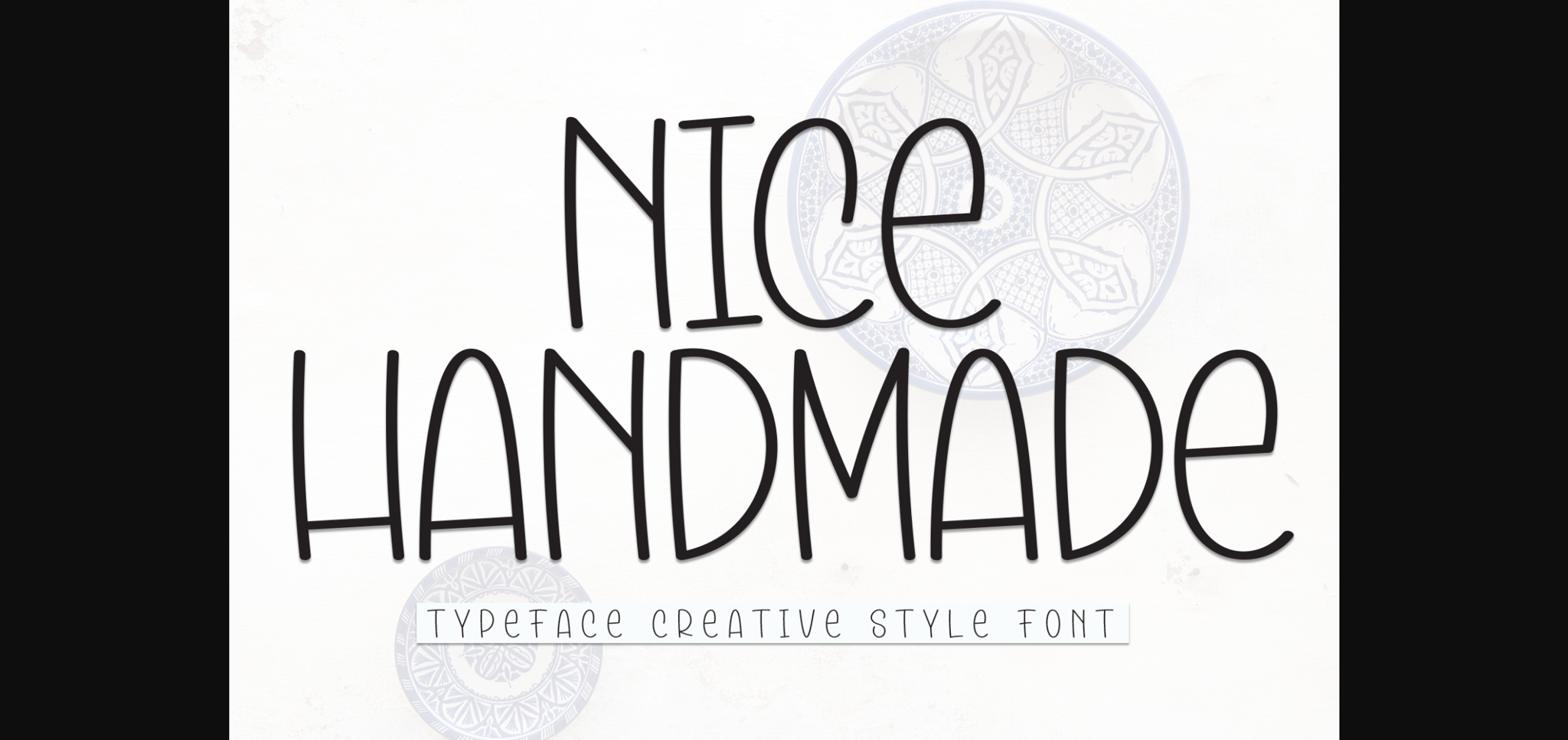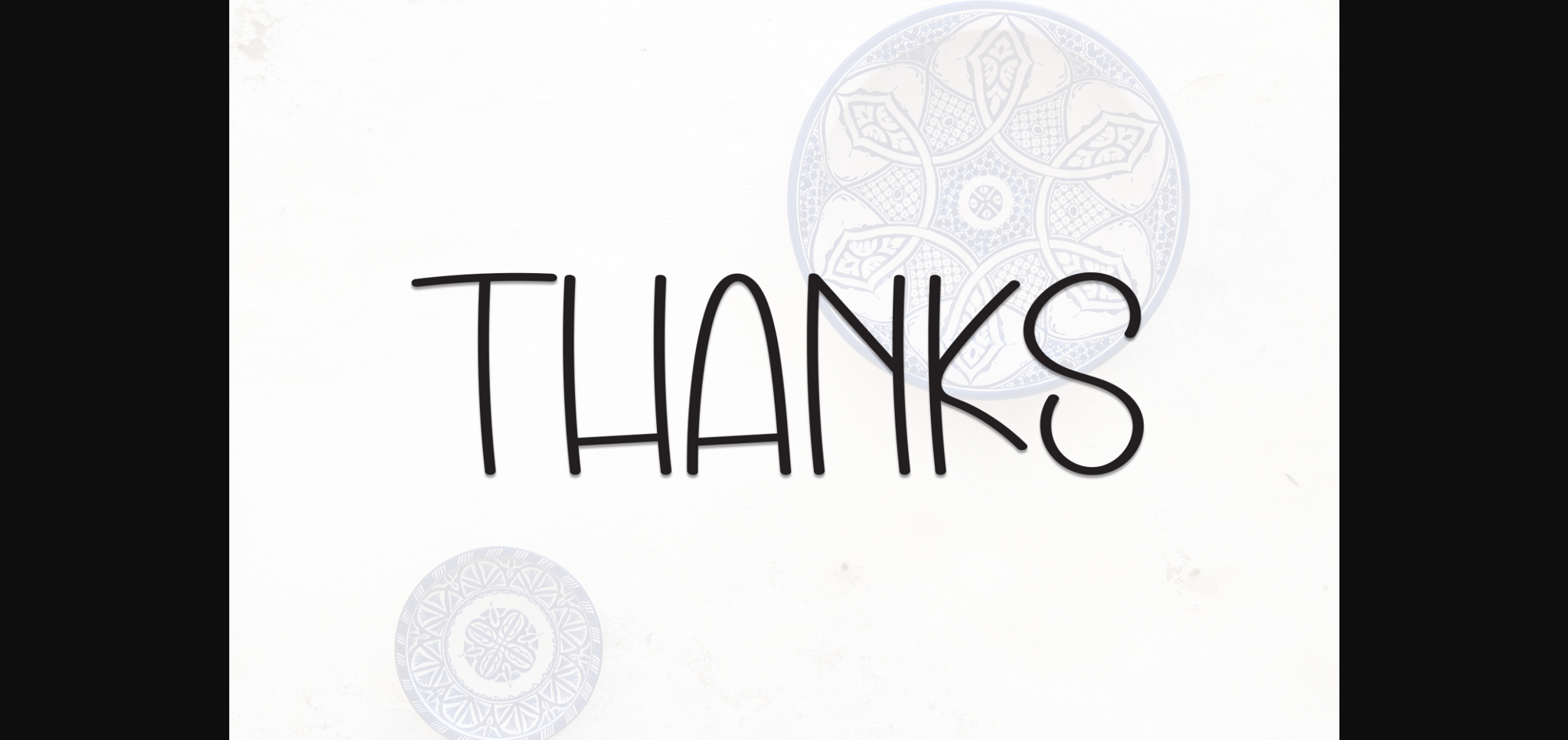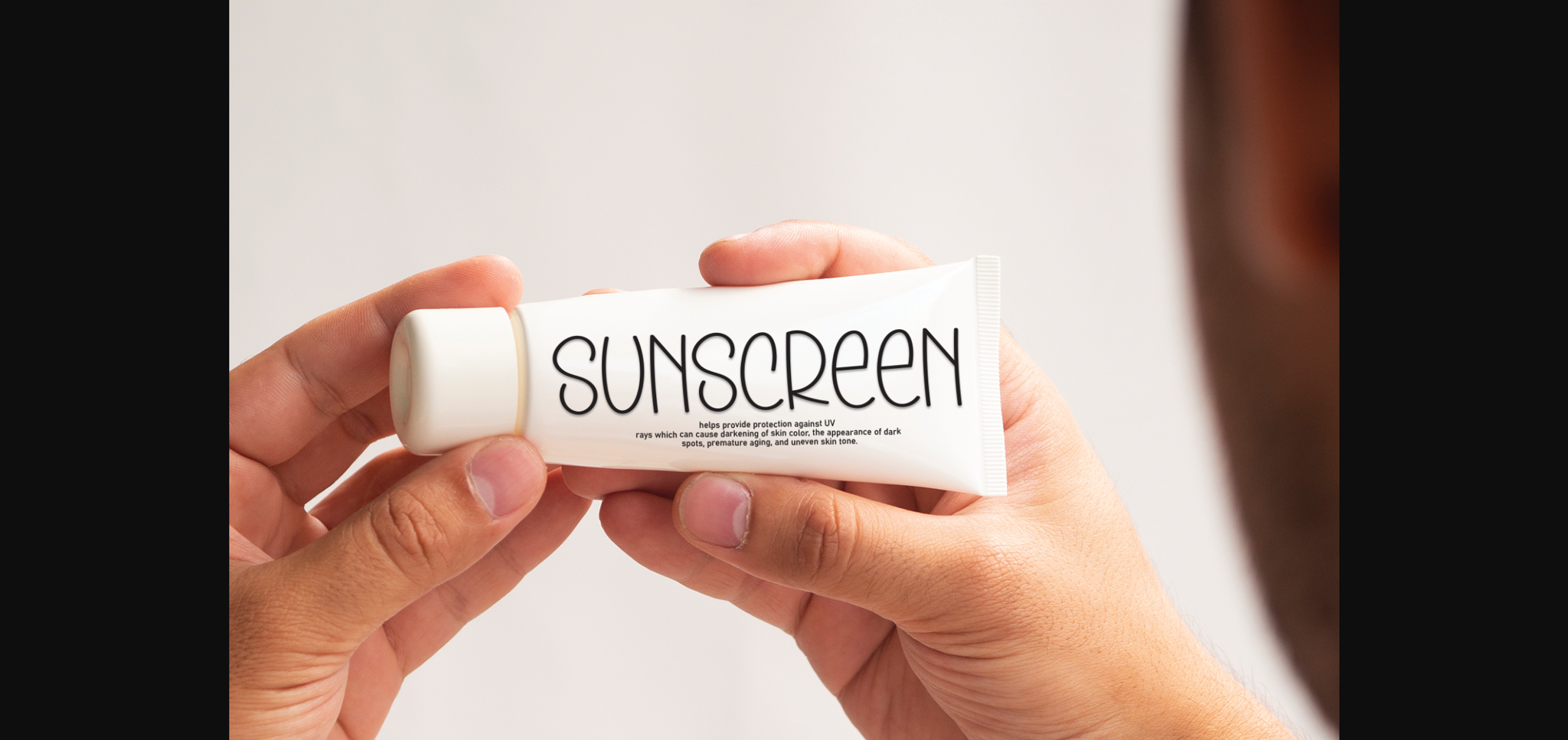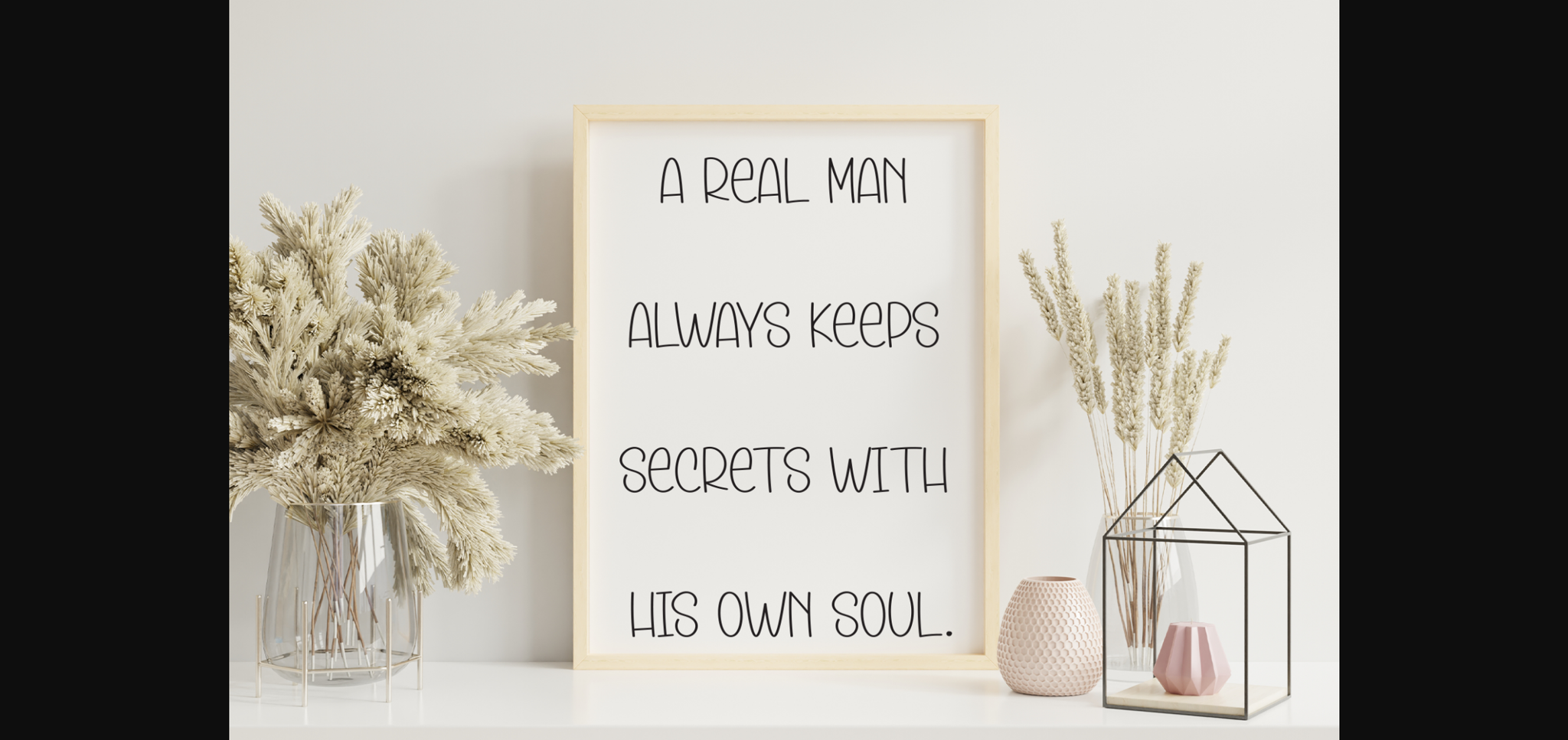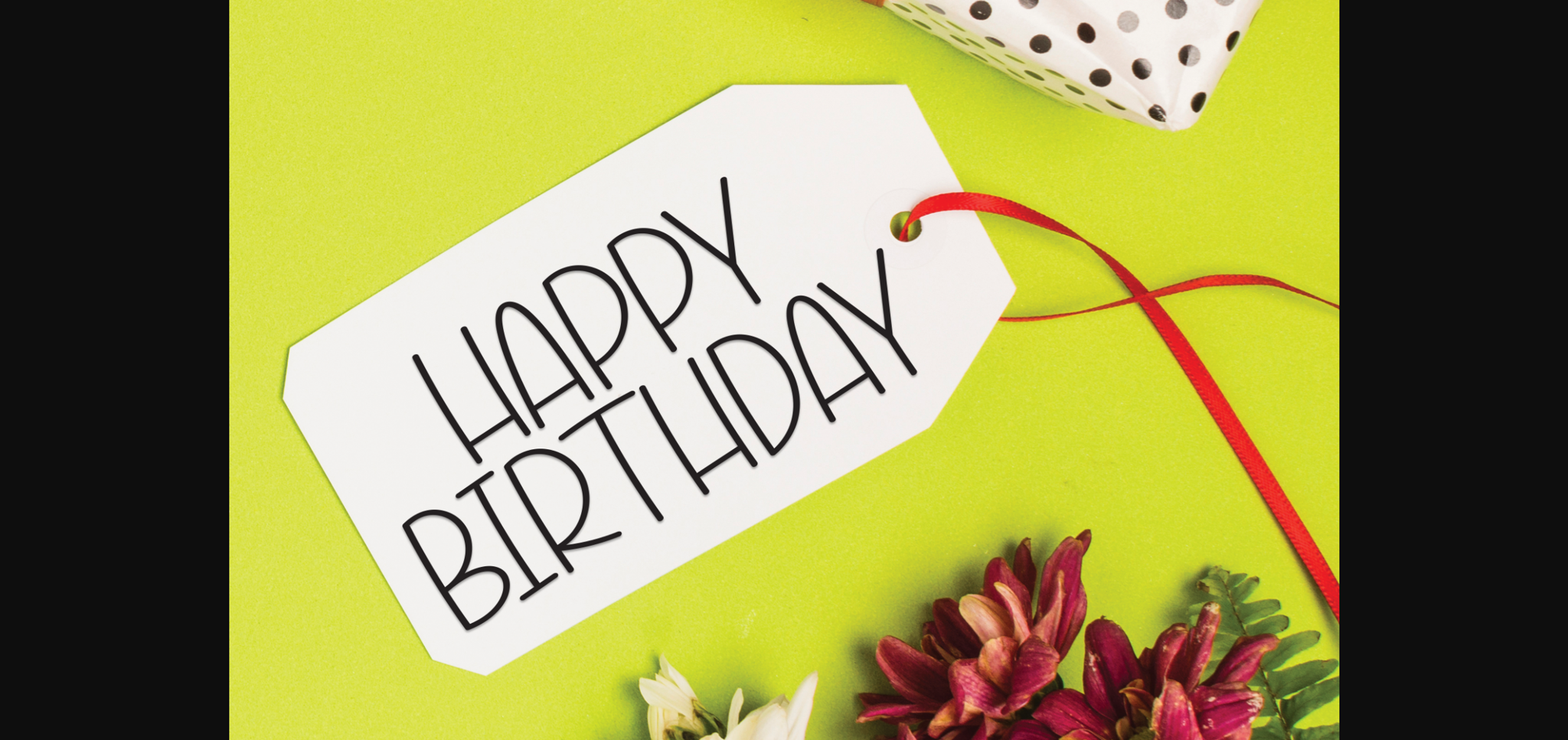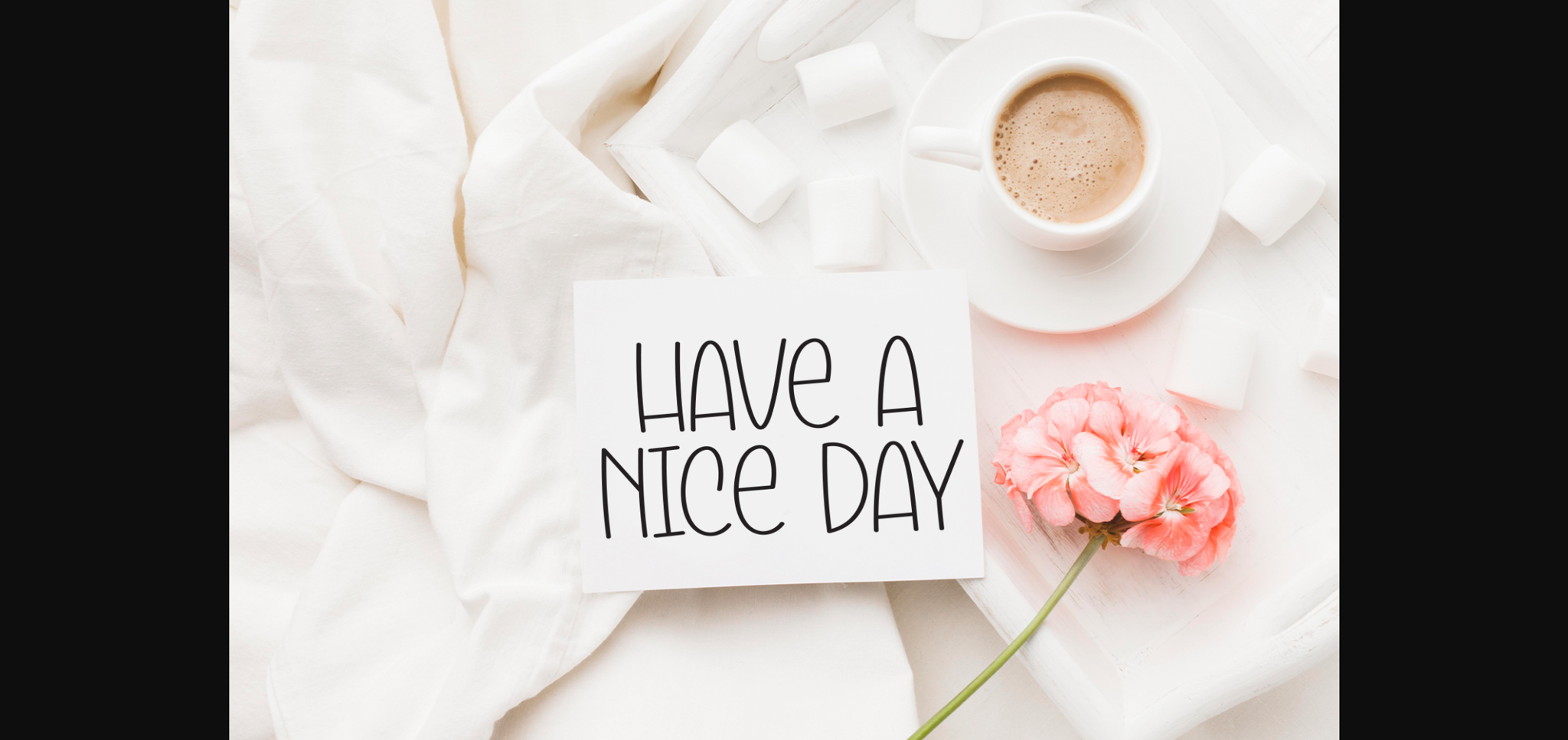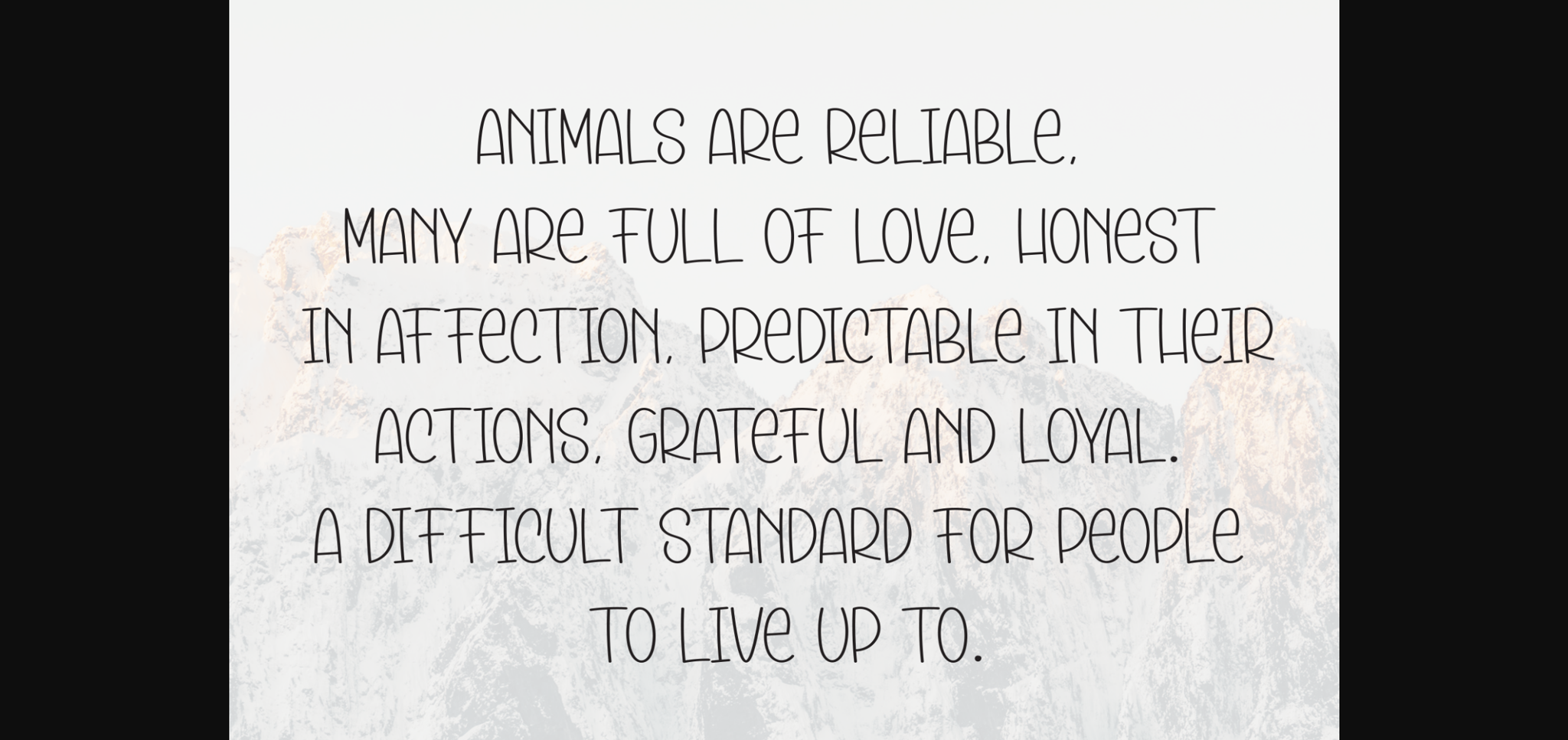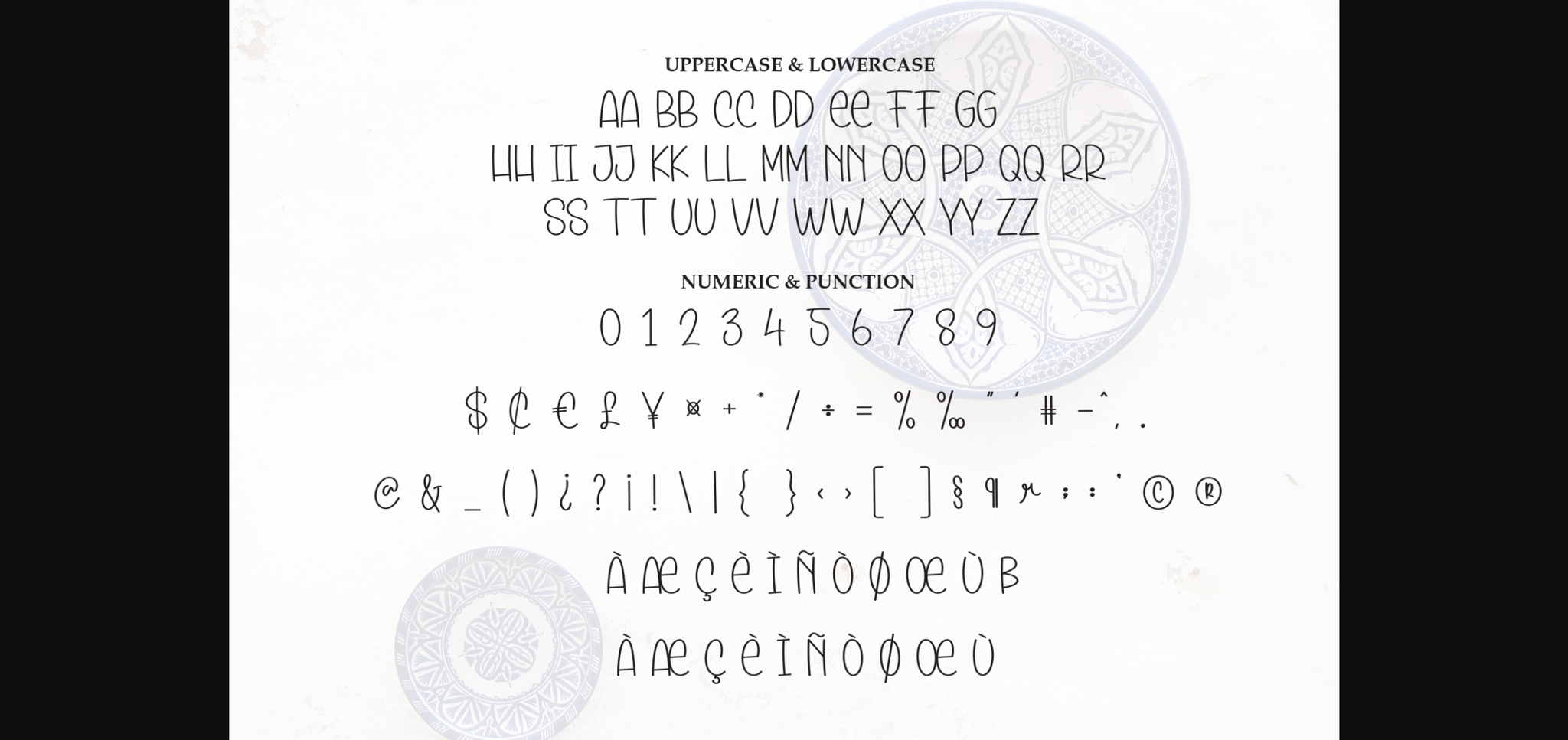
HomeSans Serif FontsNice Handmade Font Sans Serif Fonts Nice Handmade Font FacebookXPinterestWhatsApp 1 of 10 ... Nice Handmade Font Poster 2... Nice Handmade Font Poster 3... Nice Handmade Font Poster 4... Nice Handmade Font Poster 5... Nice Handmade Font Poster 6... Nice Handmade Font Poster 7... Nice Handmade Font Poster 8... Nice Handmade Font Poster 9... Nice Handmade Font Poster 10... About Nice Handmade Font Nice Handmade is a sweet and friendly sans-serif font. Cute yet versatile, this font is ideal for writing wedding invitations, cards, or any other design that might need a lovely touch! DOWNLOAD NOW People also explored Breakfast Font Magic Christmas Font Marcella Font Keylambo Font Brock Rangos Font Ningst Smile Font Relevance Font Sunflower Font Cendana Font 507 0 TagsNice Handmade Font Previous articleMinimalist School FontNext articleMorning Bakery Font LEAVE A REPLY Cancel reply Comment: Please enter your comment! Name:* Please enter your name here Email:* You have entered an incorrect email address! Please enter your email address here Website: Save my name, email, and website in this browser for the next time I comment. Personal Use Free Sweety Blue Personal Use Free Read more about this font Nottingsam Personal Use Free Read more about this font Anggiana Personal Use Free Read more about this font Zalitta Personal Use Free Read more about this font BLOG Fonts That Capture the Spirit of New York City New York City is more than just a place—it’s an experience, a rhythm, a visual language... Top 7 Google Fonts Alternatives for Faster and Privacy-Friendly Web Design (2025) Top 10 Handwritten Fonts That Elevate Your Designs How to Cut Any Font on Cricut: Convert a Font to SVG (Free)